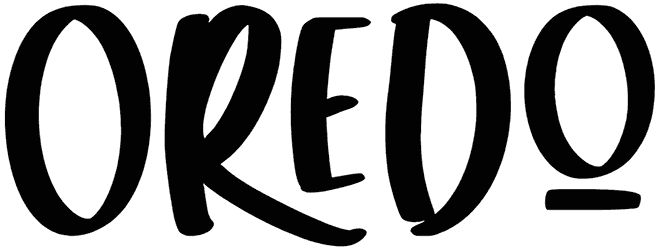
Oredo Font
Having a beautiful handwritten font like Oredo, which includes all the capital characters in two forms, is a good thing for creating a polished design that will appeal to everyone. Even though this script font doesn’t ha…
Having a beautiful handwritten font like Oredo, which includes all the capital characters in two forms, is a good thing for creating a polished design that will appeal to everyone.
Even though this script font doesn’t have any lowercase letters, it works well with a wide range of designs, namely business cards, fashion, and others. We guarantee that you will be pleased with the results of your project if you use the Oredo font.